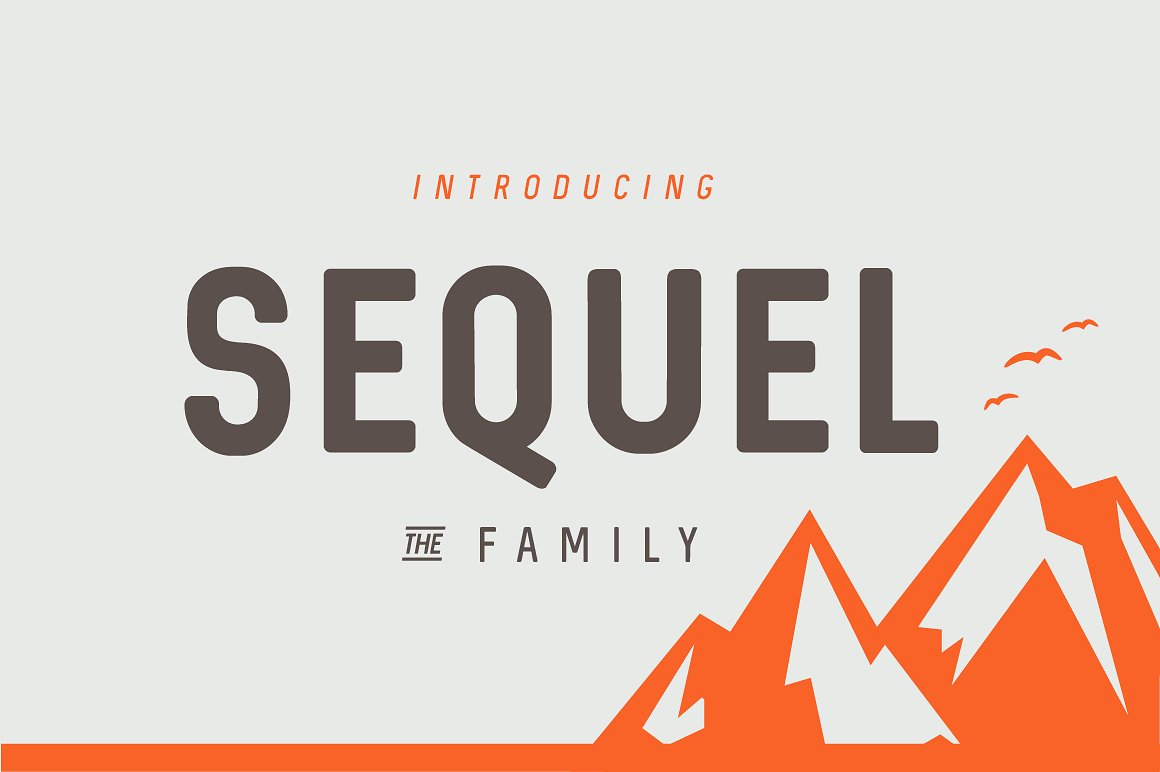
Sequel Font Family
Sequel is multifunctional, as it has 8 different ligatures and unique brackets. It contains: the full versions of: Sequel Light, Sequel Light Italic Sequel Neue Italic